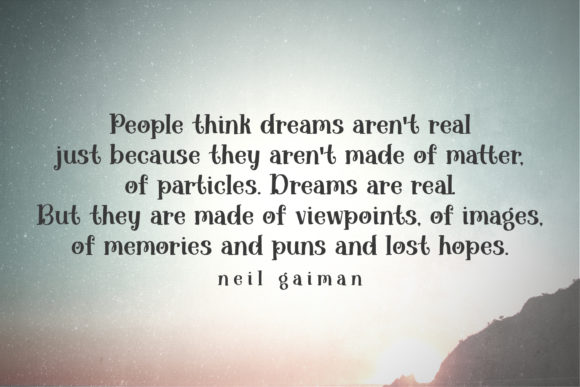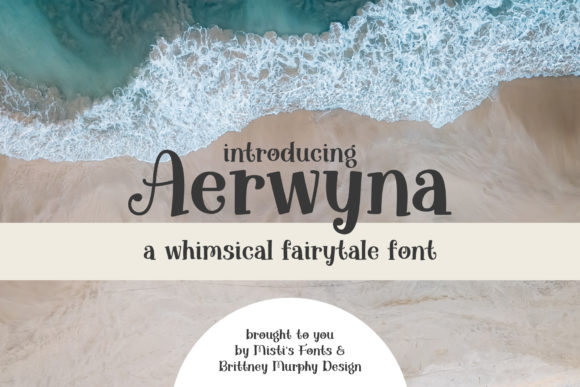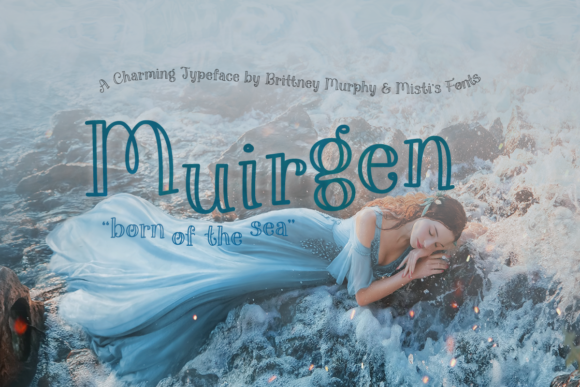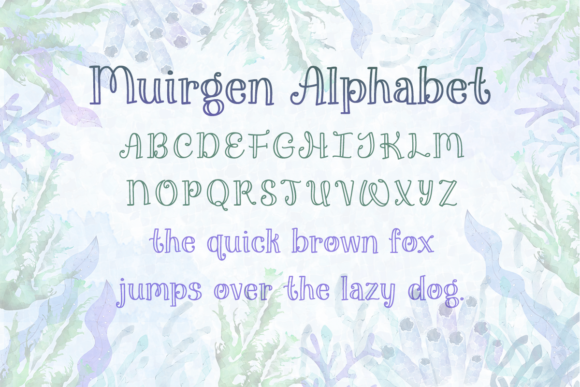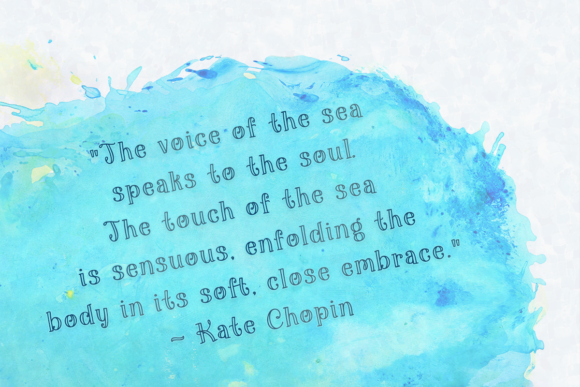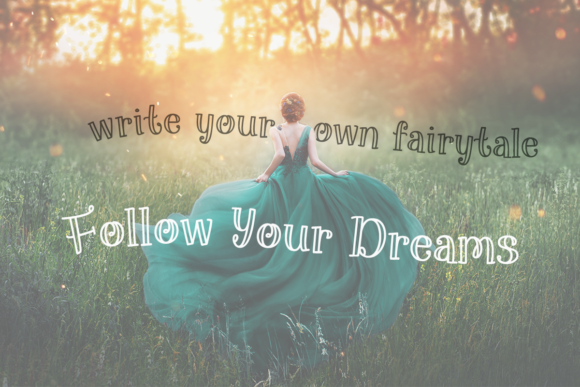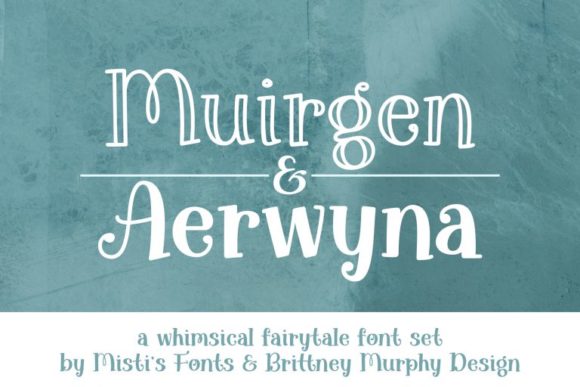
The Magical World of Aerwyna & Muirgen Font Duo
I’ll never forget the time I was working on a whimsical children’s book project, and I just couldn’t find the perfect font to bring the story to life. The client wanted something that felt like a fairytale, with a touch of friendliness and playfulness. That’s when I stumbled upon the Aerwyna & Muirgen Font Duo, created by Brittney Murphy Design & Misti’s Fonts. It was like finding a treasure trove of typographic delights! ✨
- ✨ Unique yet legible: Aerwyna and Muirgen are handdrawn serifs that boast a distinctive, rustic charm without sacrificing readability.
- ✅ Whimsical and friendly: These fonts are perfect for projects that require a touch of playfulness and approachability.
- 🎨 Versatile: They can be used for headlines, bylines, or content, making them a great addition to any design project.
While Aerwyna and Muirgen are fantastic fonts, there are a few things to keep in mind:
- ⚠️ Glyph limitations: As handdrawn fonts, they might not have the same level of glyph coverage as more extensive font libraries.
- 🤔 Kerning adjustments: Some users may need to make manual kerning adjustments, especially when using the fonts at smaller sizes.
- Experiment with OpenType features, such as stylistic alternates, to add visual interest to your text.
- Explore glyphs, ligatures, and stylistic alternates to add depth and personality to your text.
The Story Behind Aerwyna & Muirgen
Brittney Murphy Design & Misti’s Fonts created Aerwyna and Muirgen with a clear vision: to bring a touch of rustic, fairytale charm to design projects. Inspired by traditional handdrawn fonts, they aimed to craft unique yet legible typefaces that would add a dash of whimsy to any design.
| Font Name | Aerwyna & Muirgen Font Duo Font |
| What makes Aerwyna and Muirgen unique? | They’re handdrawn serifs with a rustic, fairytale charm that’s both whimsical and legible. |
| Are there any OpenType features available? | Yes, Aerwyna and Muirgen support OpenType features like stylistic alternates, glyphs, and ligatures. |
| Can I use these fonts for body text? | While they’re suitable for body text, Aerwyna and Muirgen shine brightest in headlines, titles, and short paragraphs. |